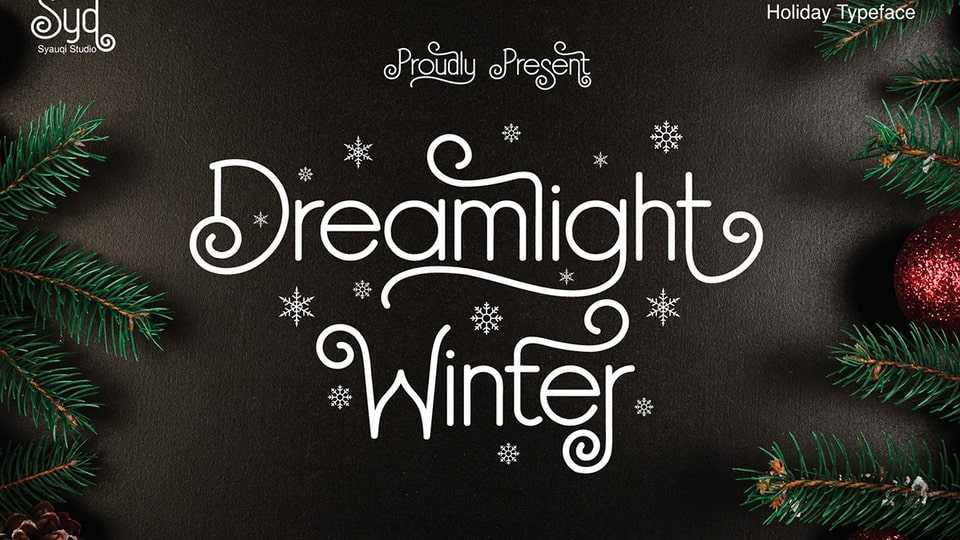
Download Dreamlight Winter font, an elegant and versatile typeface designed to capture the essence of the winter season, inspired by the peaceful beauty of snowy landscapes and the warmth of festive celebrations.
Designer: Syauqi Studio